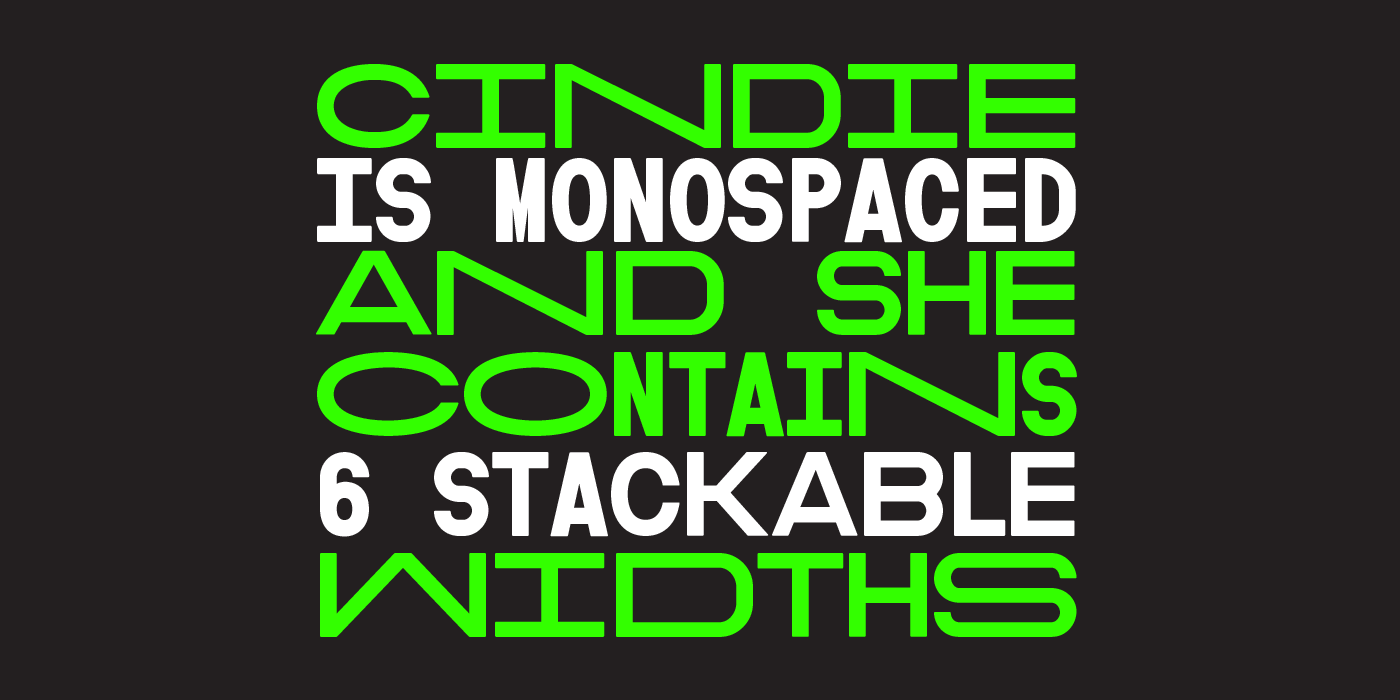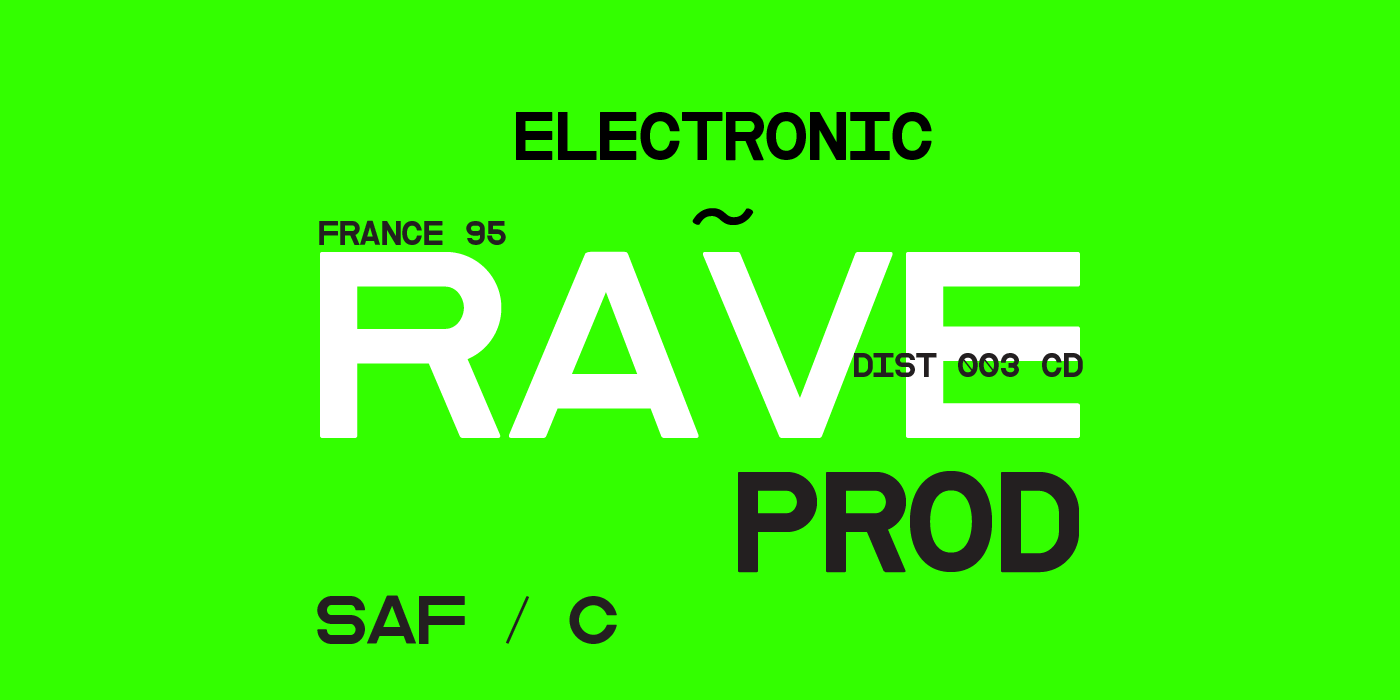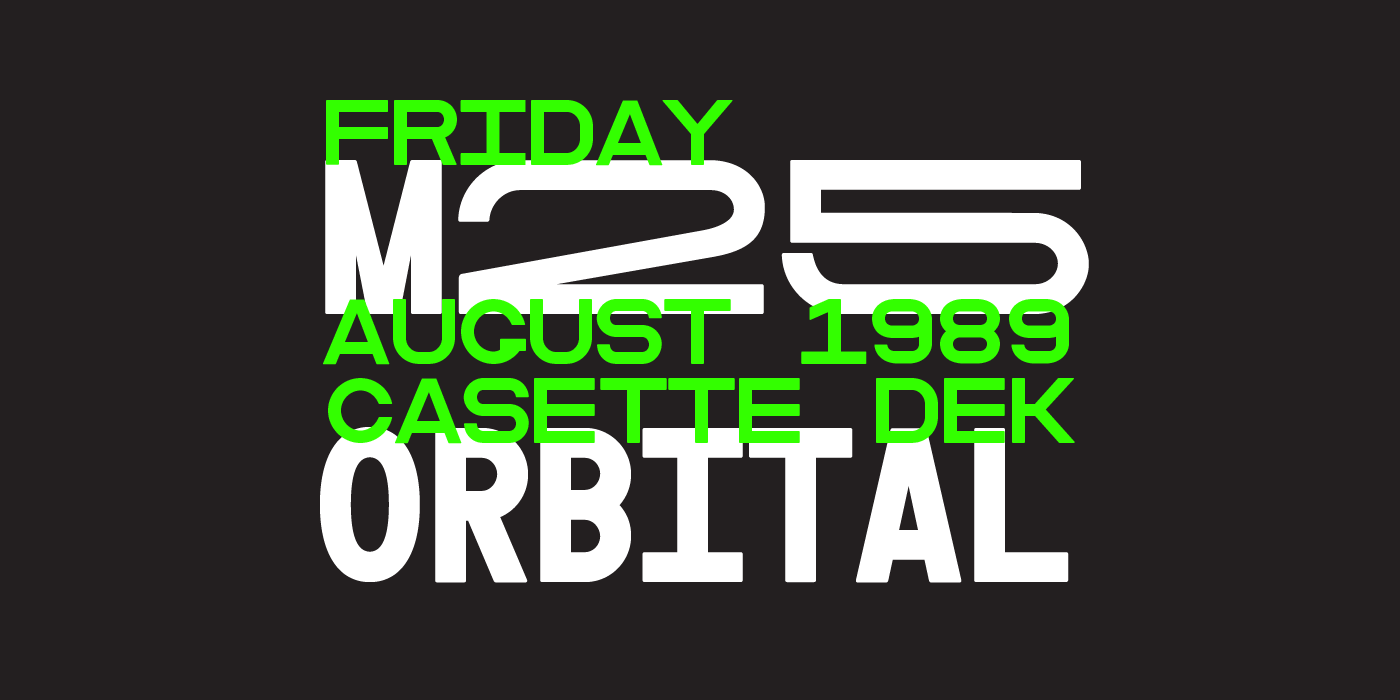
Cindie Mono Type Family
Cindie Mono is a multi-width display font. Six different widths – A (condensed) through F (super extended) – mathematically correspond with one-another creating a stackable type family. Each face contains all caps full West, Central and East European language support. All diacritics and marks are done in a hairline to add style and contrast. And Cindie Mono is ideal for posters, headlines and display lettering. The inspiration for Cindie Mono came from the lettering styles on optometrists sight-test posters. Then through several stages of development the overall concept for Cindie became of a half-broken Commodore 64 and the computer from the 1985 movie 'Weird Science' hooked up to a dot-matrix printer spitting out reams of mechanical but distorted mono-lettering all the while an old modem you can't seem find keeps beeping and beeping...